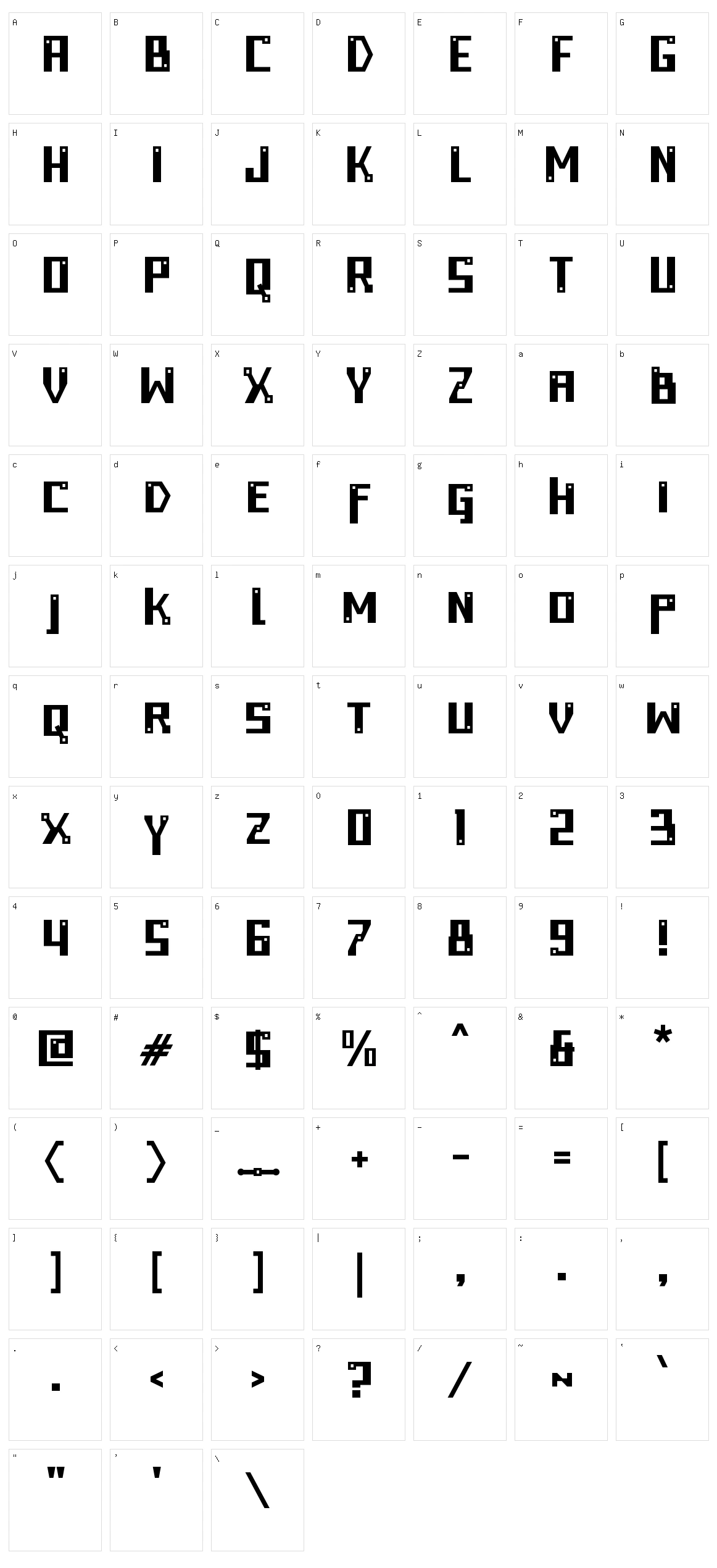
The free font b Buruh Ngepath is carefully designed by wep, showcasing a thoughtful balance of creativity and usability and falls under the Square font style. When you download the ZIP file, it contains only 5.05 KB of font files, making it lightweight and quick to download. Please review the license details below to understand permitted usage and distribution rights. If license information is not available, we recommend using this font for personal projects only or contacting the author directly for commercial usage permissions.